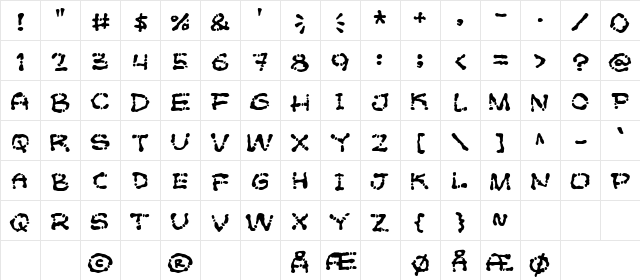
Poft Sarade Regular
Design Context for Poft Sarade Typeface
Poft Sarade is a composed and adaptable typeface that performs quietly and consistently across a wide range of design contexts.